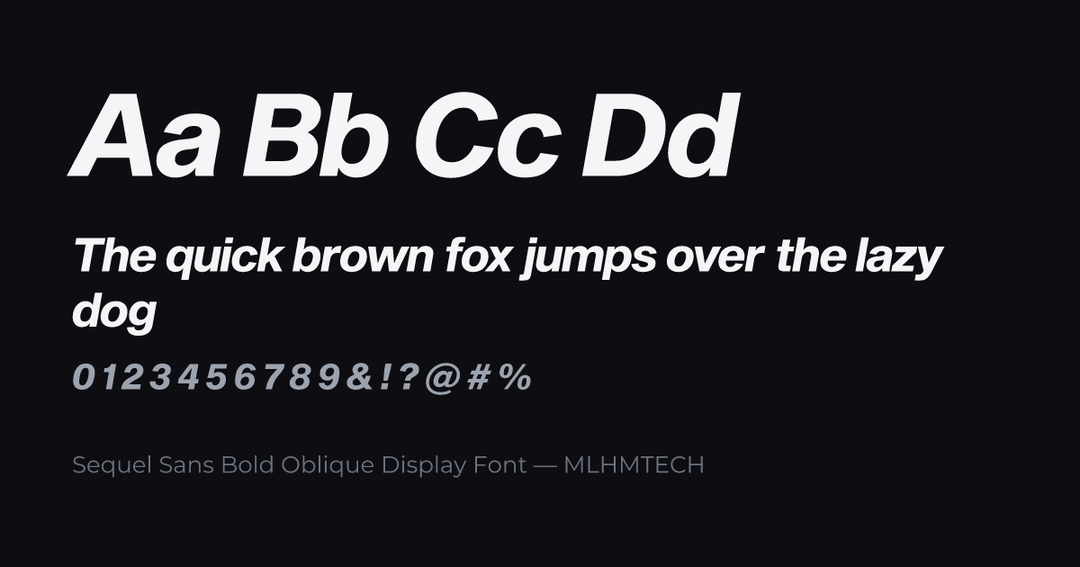
Sequel Sans Bold Oblique Display Font
Sequel Sans Bold Oblique is a modern, bold sans-serif display font with an oblique slant, ideal for impactful headlines and branding.
Sequel Sans Bold Oblique Display is a versatile typeface that combines geometric clarity with a dynamic oblique angle. Its bold weight ensures high visibility, making it perfect for headlines, posters, and branding materials that need to stand out.
The font's clean lines and contemporary feel work well in both digital and print media. Use it for logos, titles, or any design where you want to convey confidence and modernity.